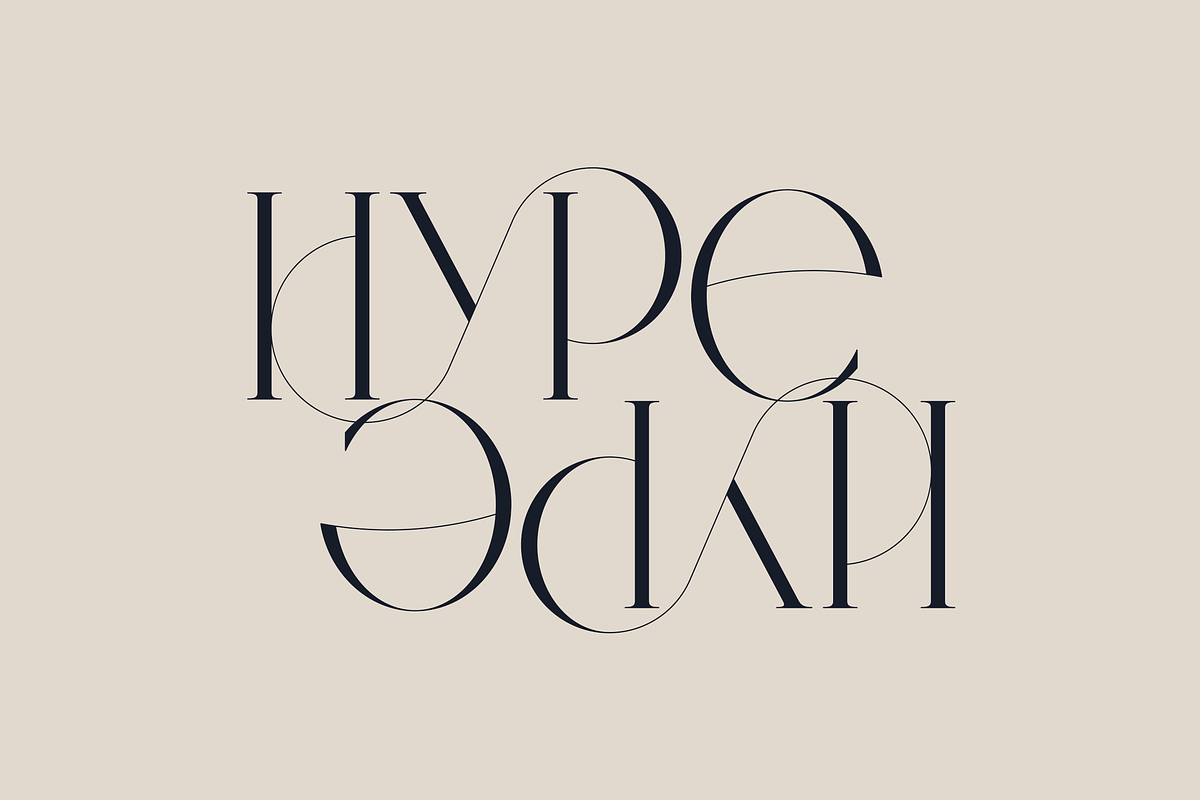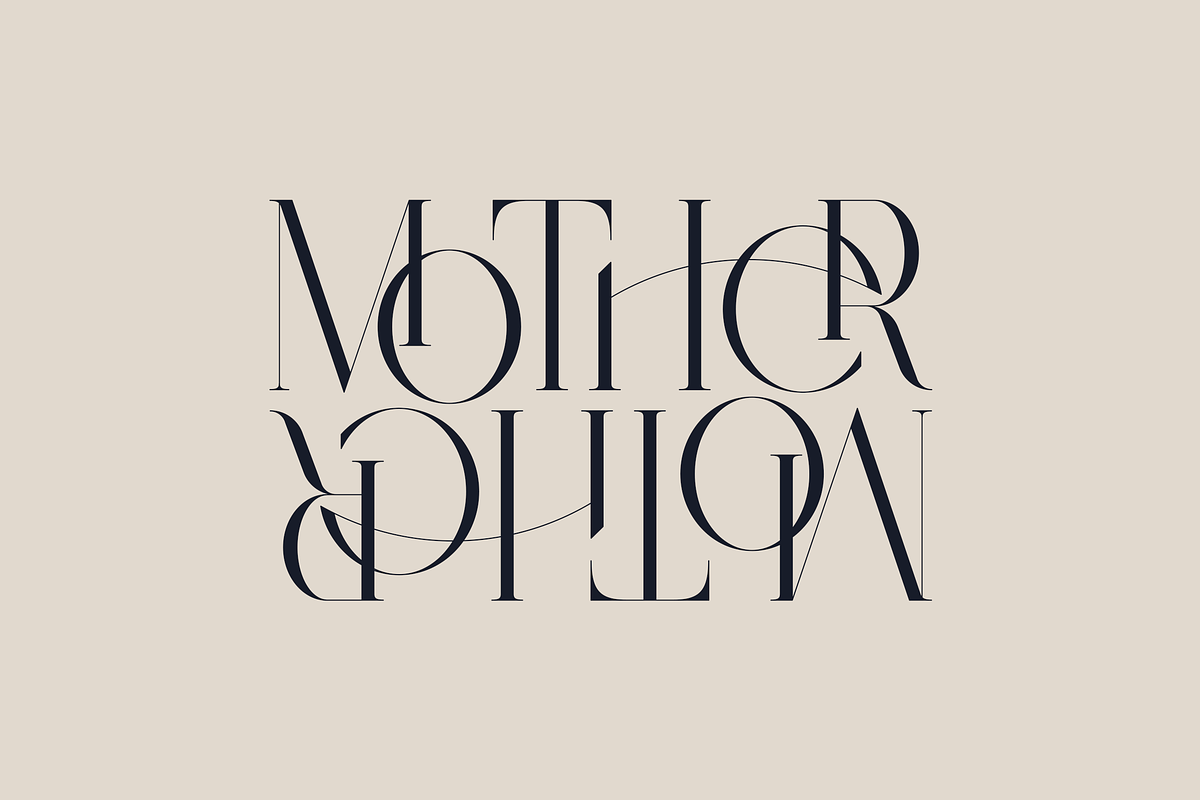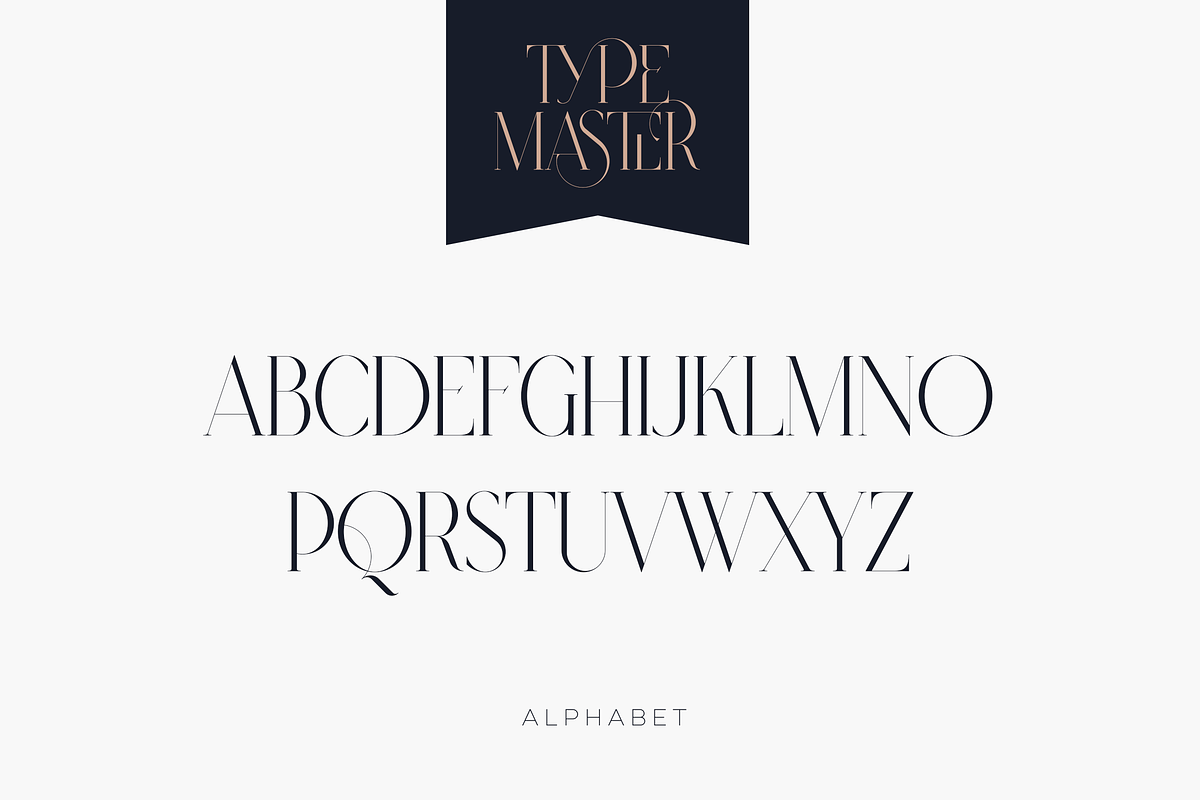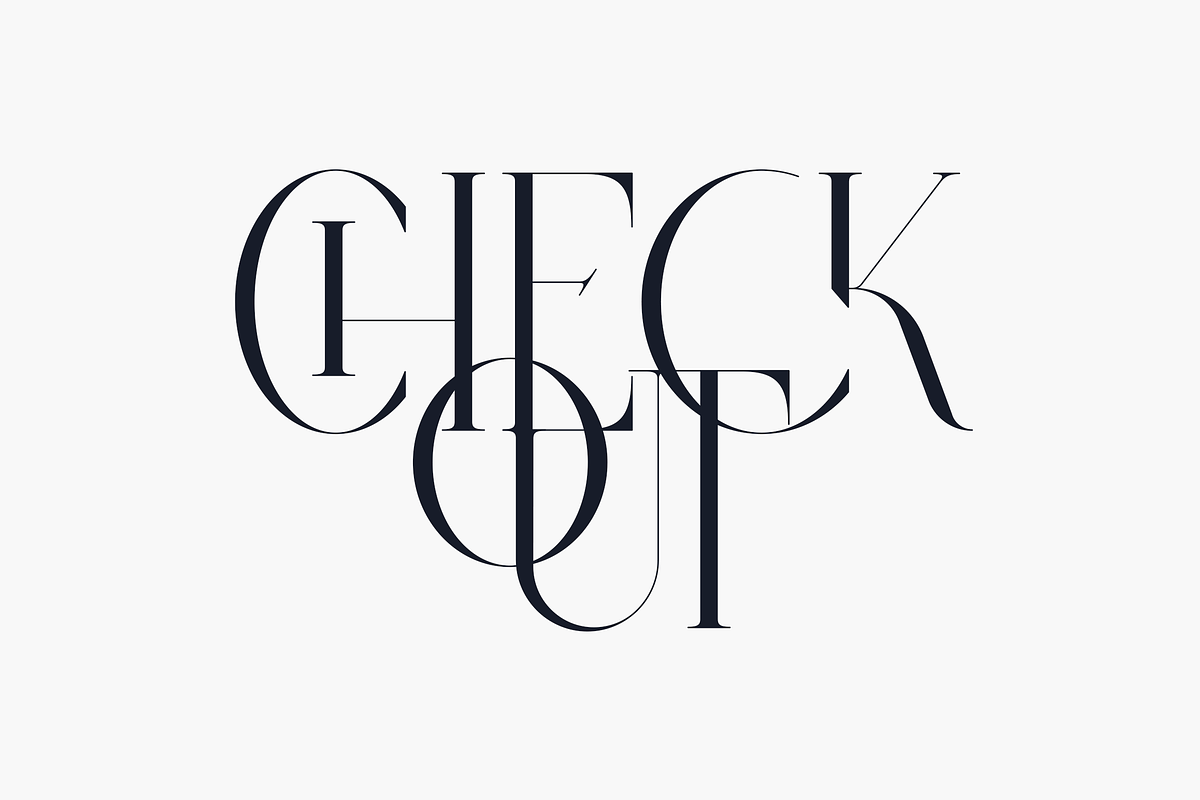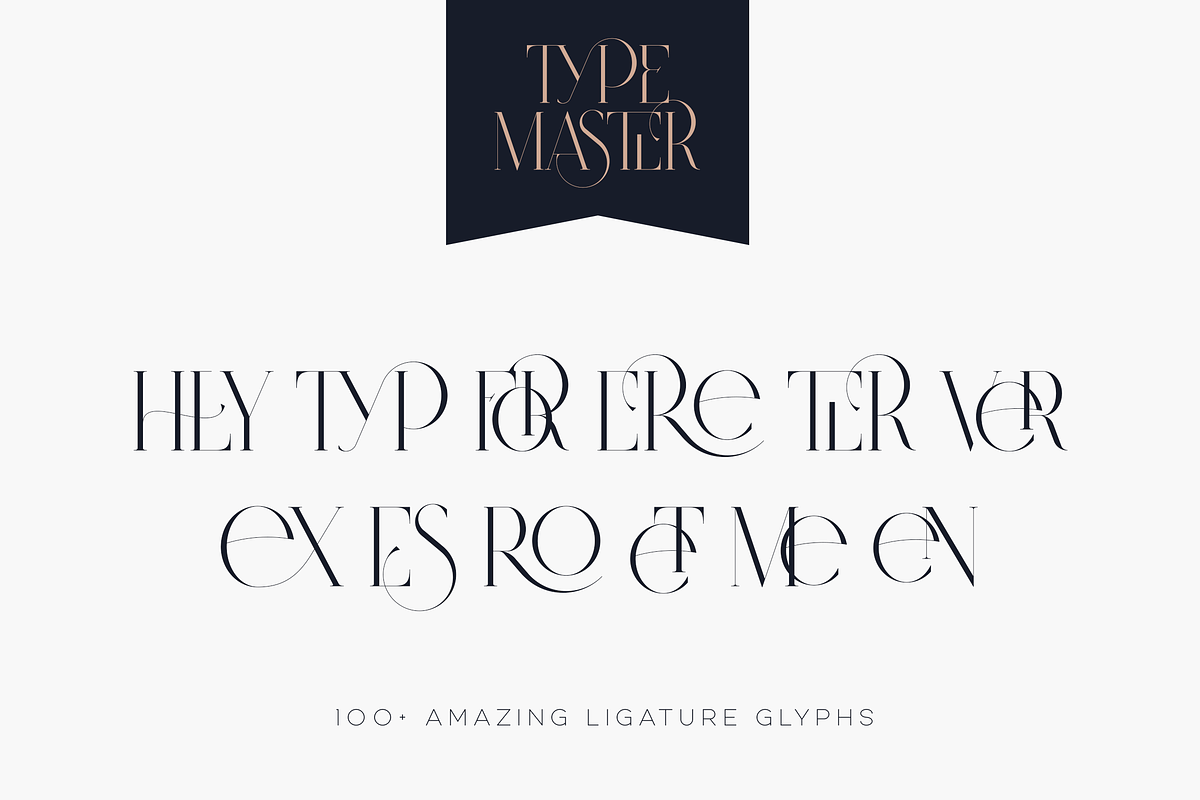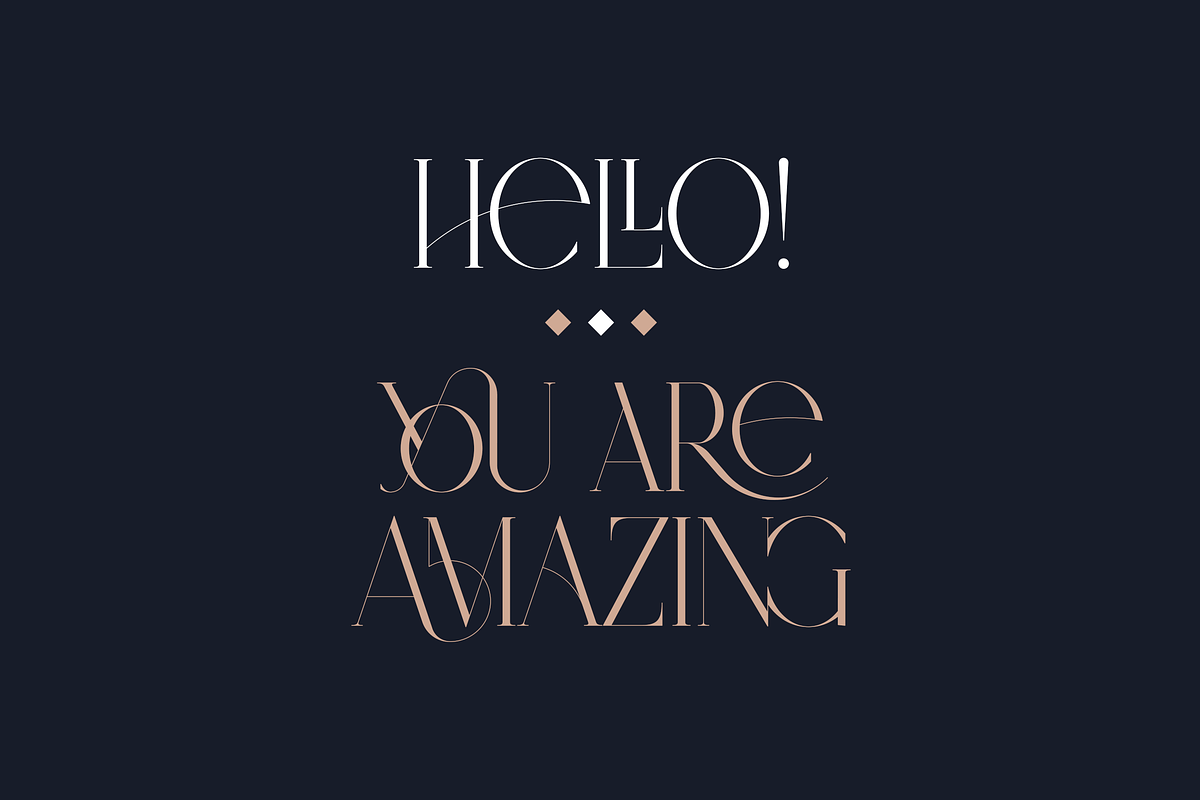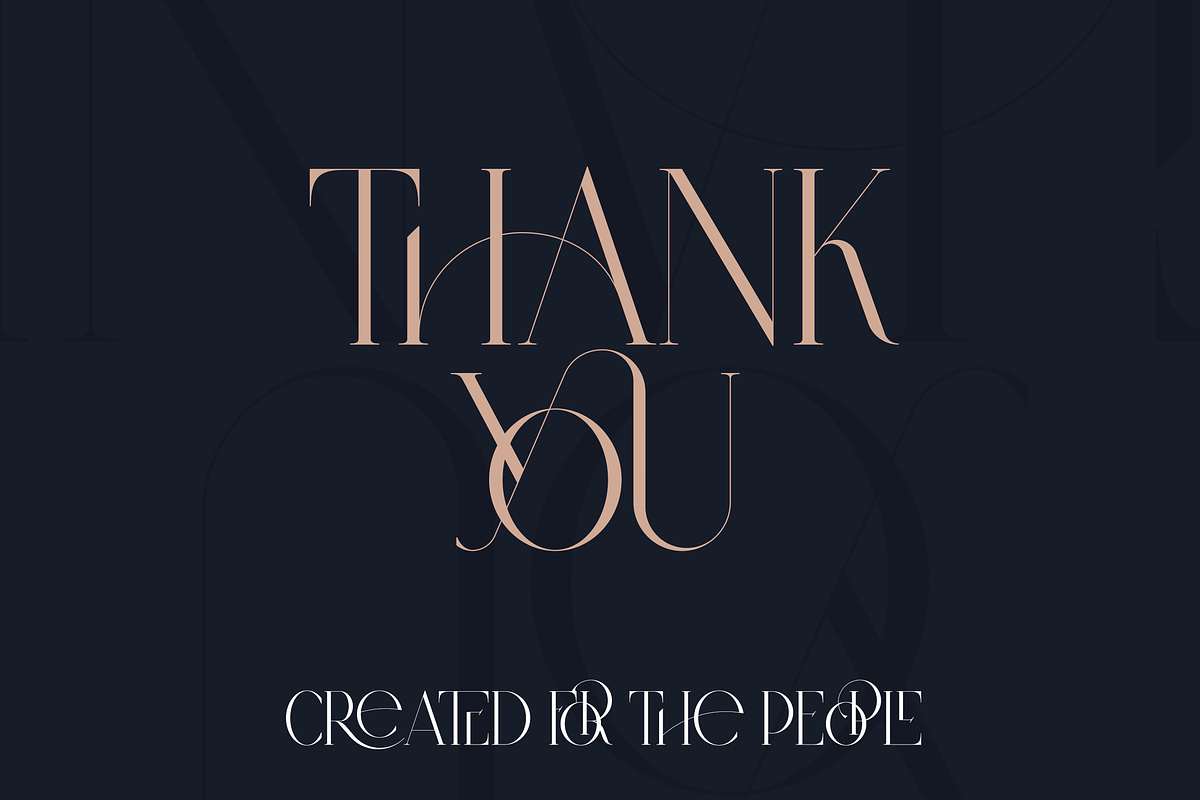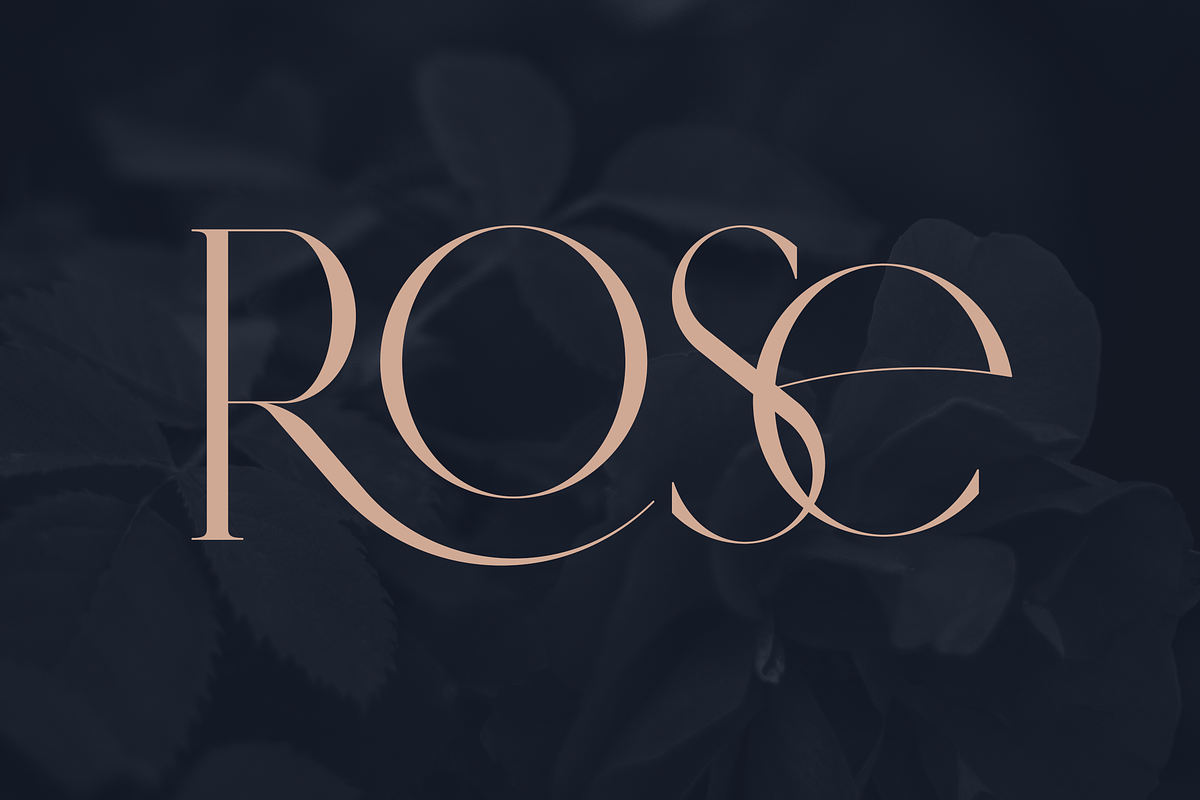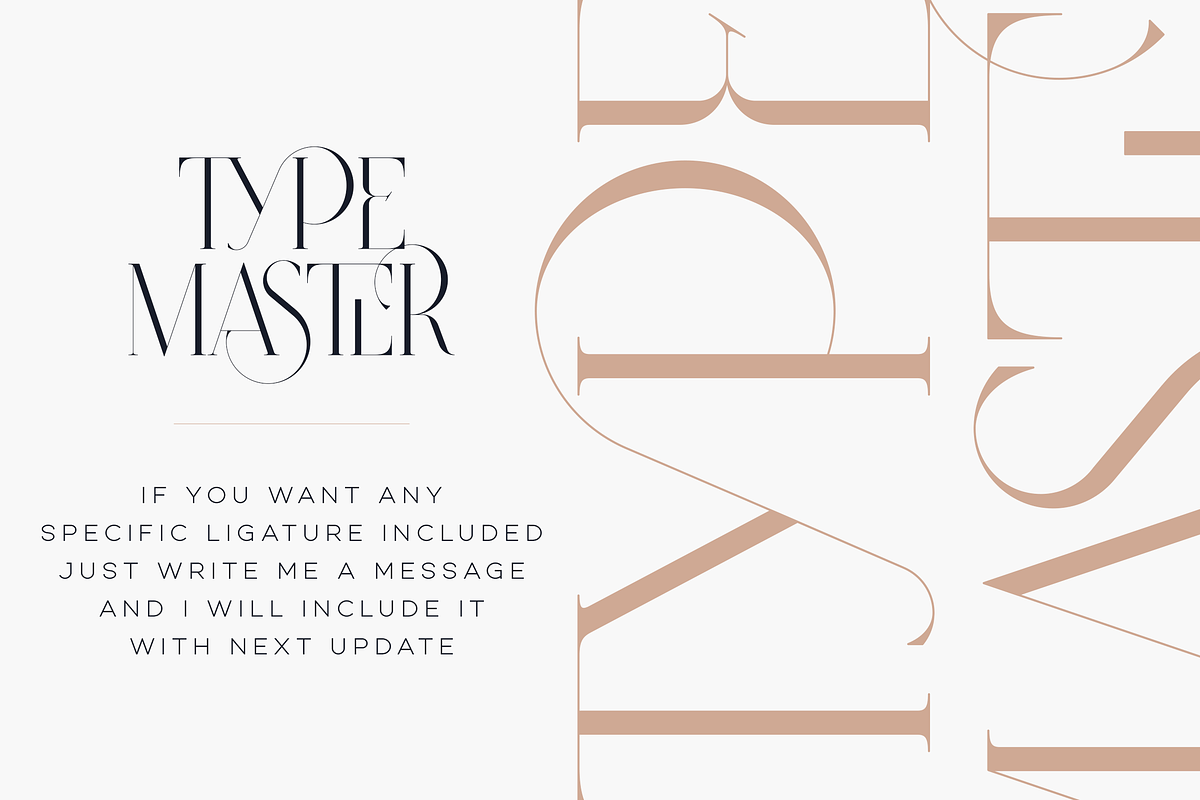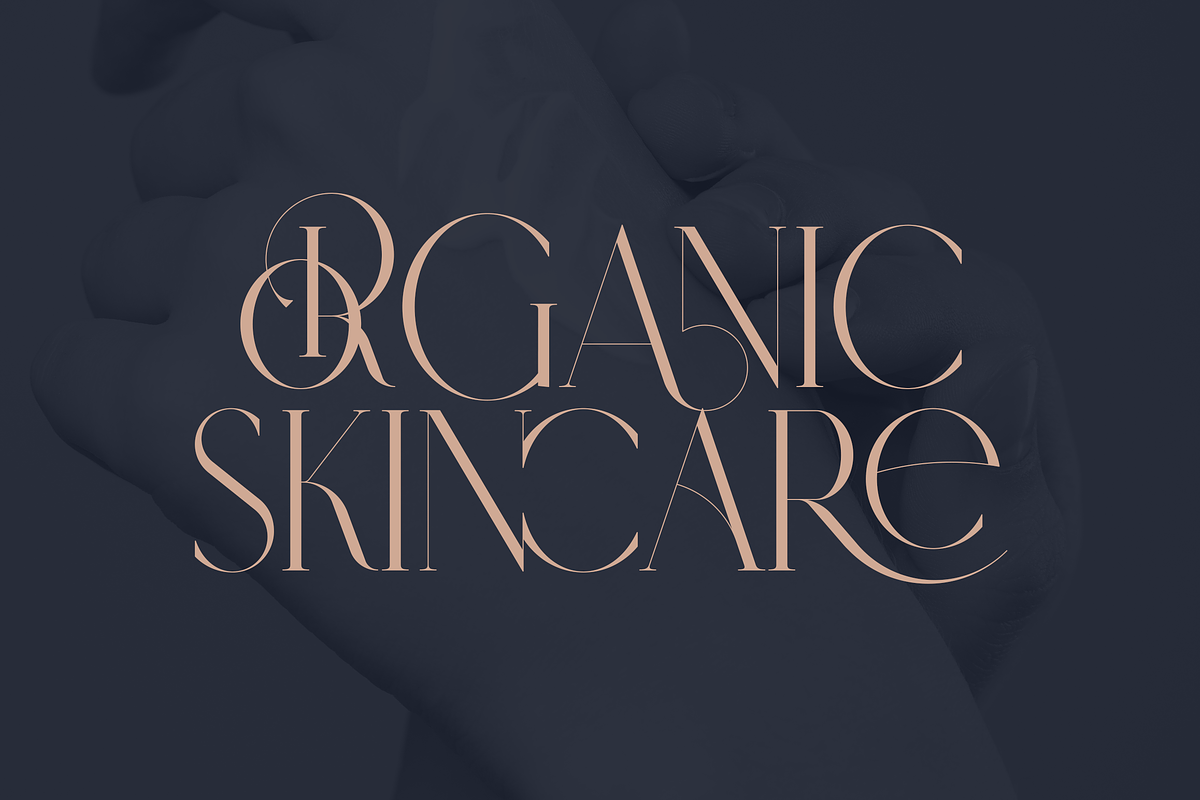
SALE! Type Master - serif font
Type Master is a sophisticated and delicate serif font that exudes elegance in every aspect. With its extensive collection of over 100 ligatures and alternate glyphs, this font offers endless possibilities for creative expression. Additionally, its support for 87 languages ensures that it is versatile enough to meet the needs of any project. Whether you are designing a logo, creating marketing materials, or crafting an editorial layout, Type Master is the perfect choice for adding a touch of refinement to your work.
Ligatures : IS, FO, OD, FA, TY, EX, NN, PI, EY, AY, SS, LL, FU, US, UT, AS, AN, AM, CI, LO, ES, RO, ET, TE, CK, OH, OO, OE, OC, KO, KE, KC, CH, SE, EA, UR, RS, KS, TH, TU, TT, TK, TL, HE, RG, EP, ER, RE, RC, LE, ND, ED, OF, HA, EN, CT, ST, NT, ON, ME, MO, NG, NC, UG, UC, OU, GH, OR, OP, EE, YO, VE, IT, WE, TI, FAS, FAST, CKS, OOD, FOOD, FOO, THEY, HEY, HYP, TYP, OUT, UST, URS, WAS, THE, WES, EST, WEST, ERS, EAST, EAS, LES, ENT, FOR, OUG, OUGH, ERE, TER, YOU, VER, HER, THER, THA, AND, ITH, THI, MENT, WERE, WER, ROM, THE